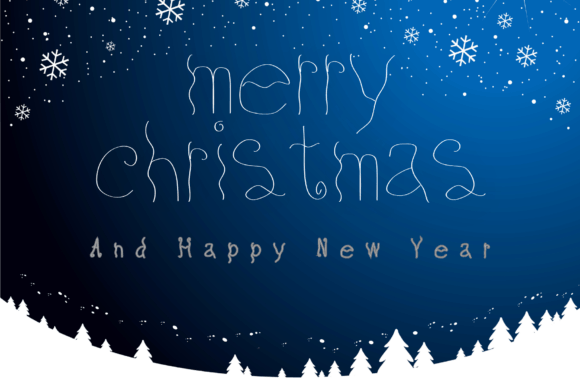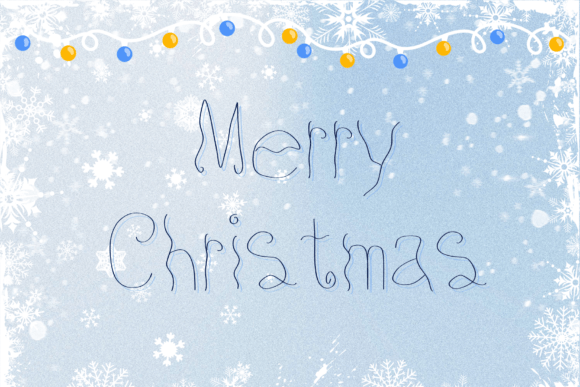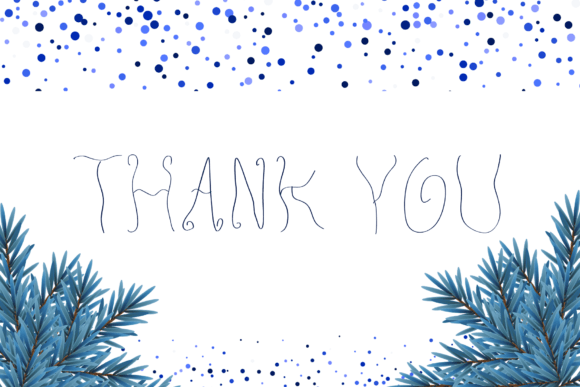
Introducing Christmas Snow Font: The Ultimate Holiday Display Font
Are you looking for a font that captures the magic and whimsy of the holiday season? Look no further than Christmas Snow Font, a sweet and friendly handwritten display font that’s perfect for adding a fun touch to your designs. In this article, we’ll explore the features and benefits of Christmas Snow Font, and show you how to make the most of this versatile and festive font.
What is Christmas Snow Font?
Christmas Snow Font is a beautifully crafted handwritten display font that’s designed to evoke the feeling of snowflakes gently falling on a winter’s night. With its rounded edges and playful lettering, this font is the perfect addition to any design that needs a touch of holiday cheer. Whether you’re a designer, crafter, or teacher, Christmas Snow Font is sure to become a favorite in your collection.
Key Features of Christmas Snow Font
- Cute and Fun: Christmas Snow Font is designed to be playful and fun, making it perfect for designs that need a lighthearted touch.
- Handwritten Display Font: With its handwritten feel, Christmas Snow Font adds a personal touch to any design.
- Versatile: This font is suitable for a wide range of design applications, from digital design to crafting and education.
- Easy to Read: Despite its playful feel, Christmas Snow Font is easy to read, making it perfect for use in titles, headings, and body text.
Uses for Christmas Snow Font
So, what can you use Christmas Snow Font for? The possibilities are endless! Here are a few ideas to get you started:
- Crafting: Add a personal touch to your handmade crafts, such as cards, gift tags, and scrapbook pages.
- Digital Design: Use Christmas Snow Font in your digital designs, such as social media graphics, blog posts, and email newsletters.
- Education: Teachers and students can use Christmas Snow Font to add a fun touch to presentations, worksheets, and classroom decor.
- Wedding Invitations: Add a touch of whimsy to your wedding invitations, save-the-dates, and other stationery.
- Comics and Games: Use Christmas Snow Font to add a playful touch to comic books, games, and other interactive designs.
- Love Shirts and Posters: Create fun and playful designs for love shirts, posters, and other promotional materials.
- Movie Titles: Use Christmas Snow Font to create eye-catching movie titles and credits.
Tips for Using Christmas Snow Font
Here are a few tips for getting the most out of Christmas Snow Font:
- Use it Sparingly: While Christmas Snow Font is fun and playful, it can be overwhelming if used too much. Use it sparingly to add a touch of whimsy to your designs.
- Pair it with Other Fonts: Experiment with pairing Christmas Snow Font with other fonts to create a unique and interesting look.
- Adjust the Size: Play around with different font sizes to create visual interest and hierarchy in your designs.
| Font Name | Christmas Snow Font |
| Author | Digital Creative Art |
Christmas Snow Font is a versatile and festive font that’s perfect for adding a touch of holiday cheer to your designs. With its playful and handwritten feel, this font is sure to become a favorite among designers, crafters, and teachers. Whether you’re looking to create digital designs, craft handmade projects, or add a fun touch to your classroom, Christmas Snow Font is the perfect choice. So why wait? Download Christmas Snow Font today and start creating your own magical holiday designs!